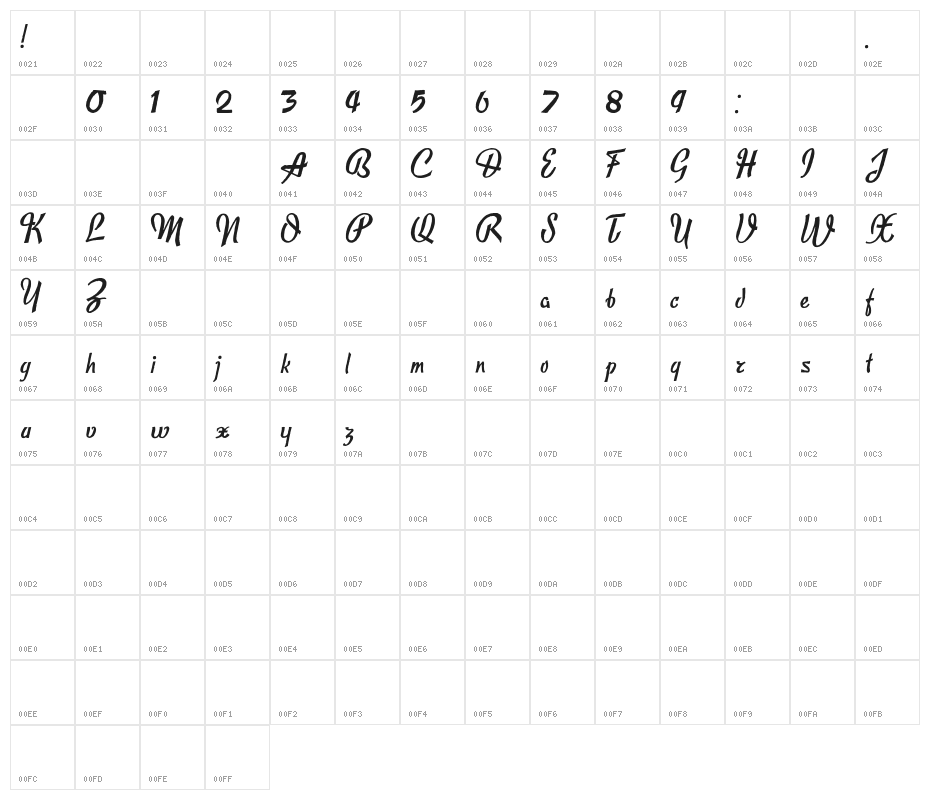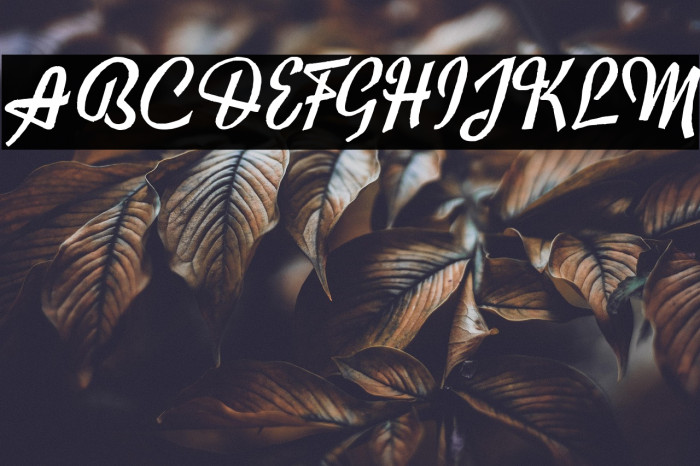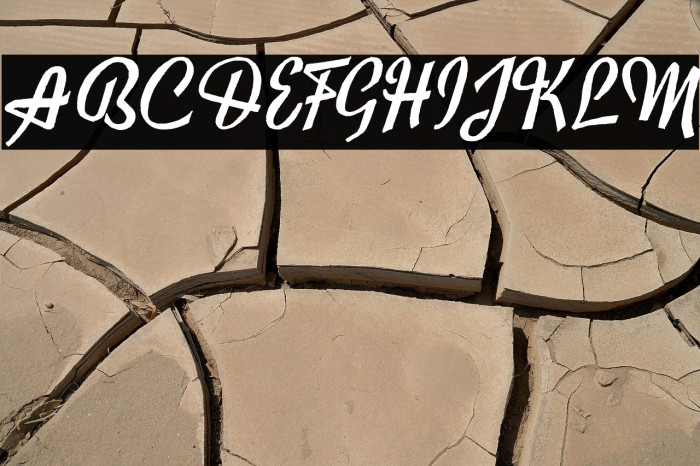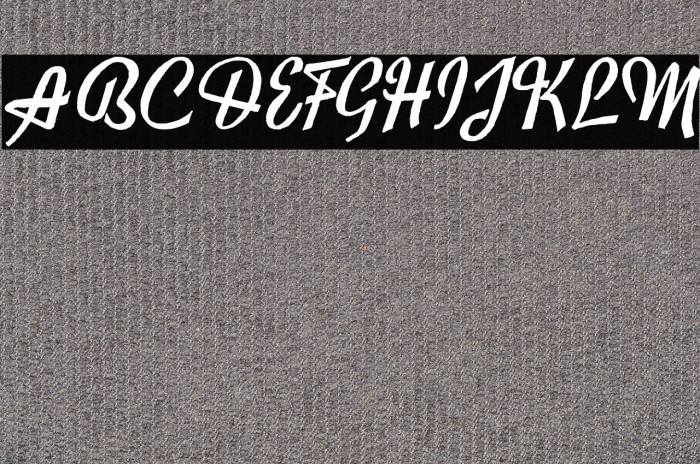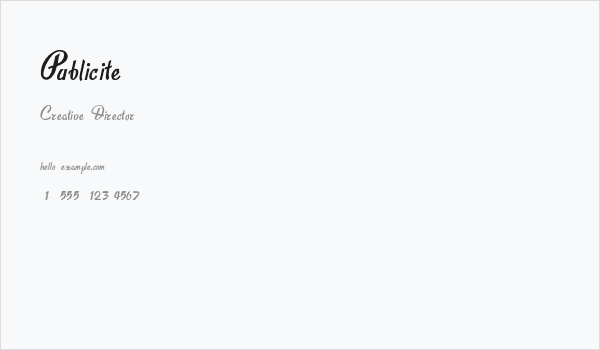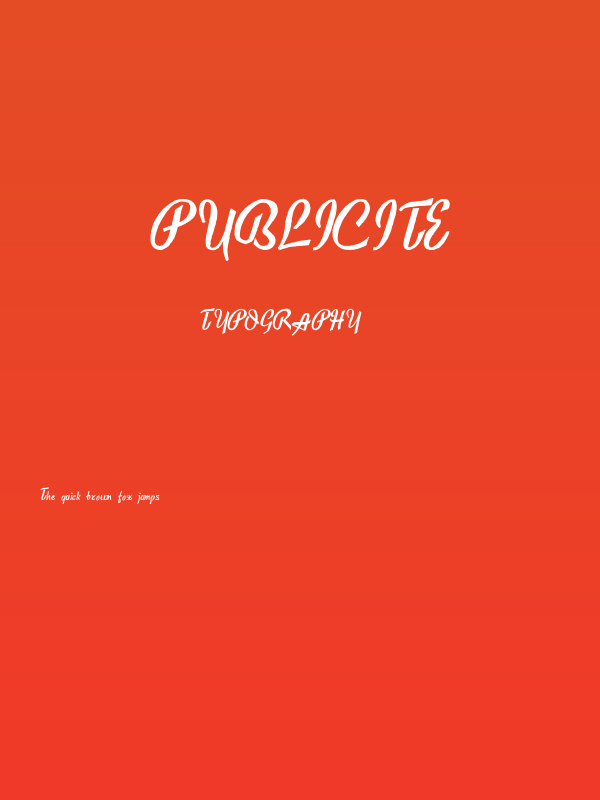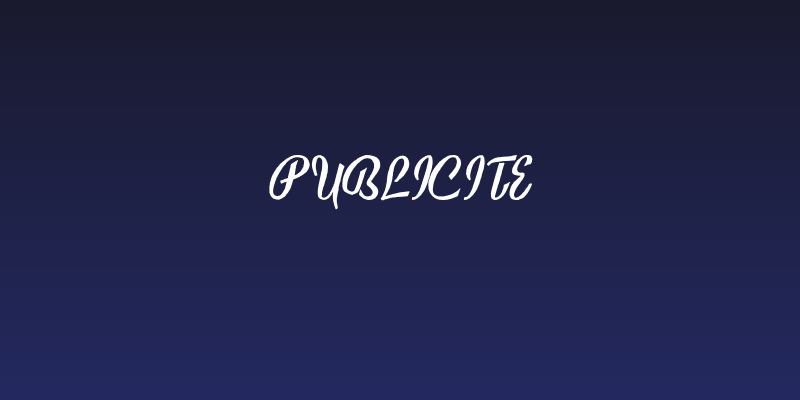
Publicite Font
Publicite Description
This font features a dynamic and expressive style with a handwritten appearance. The uppercase letters are bold and slightly slanted, giving a sense of movement and energy. The lowercase letters maintain a consistent flow, complementing the uppercase with their smooth curves and sharp edges. Numbers are bold and distinct, ensuring readability. The special characters are crafted with the same attention to detail, adding to the overall aesthetic. This font is ideal for projects that require a personal touch or a sense of creativity and flair.
| Proposed Projects | Ideal for creative projects such as posters, invitations, and branding materials that require a personal and artistic touch. |